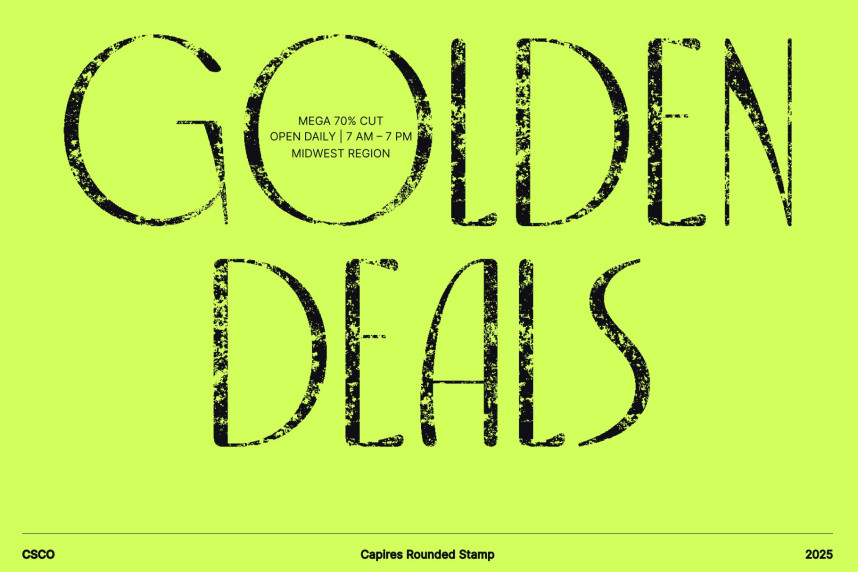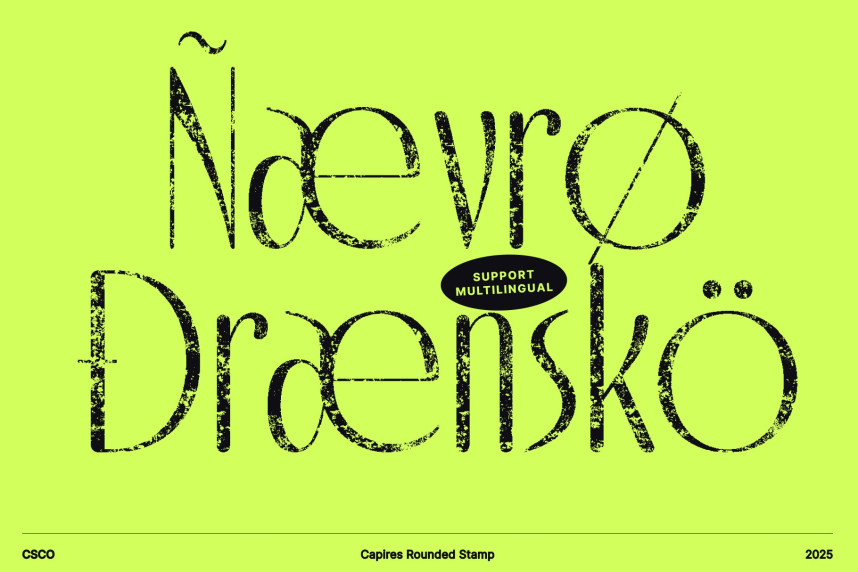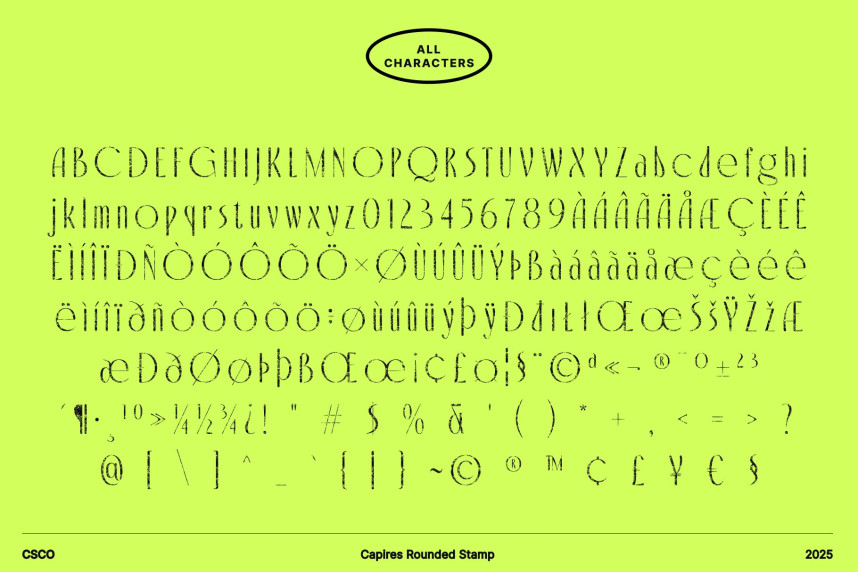
Capires Rounded Stamp Font
Capires Rounded Stamp Font – Art Deco Elegance with Vintage Texture Timeless Art Deco Style with Sleek Character. This is a sophisticated Art Deco-inspired typeface that brings timeless elegance into modern design. Its slim, condensed structure and clean geometric lines create a refined visual presence that instantly elevates any layout. Built around stylish uppercase forms, the font captures the spirit of classic Art Deco architecture, making it ideal for designers seeking a typeface that feels both historical and luxurious.